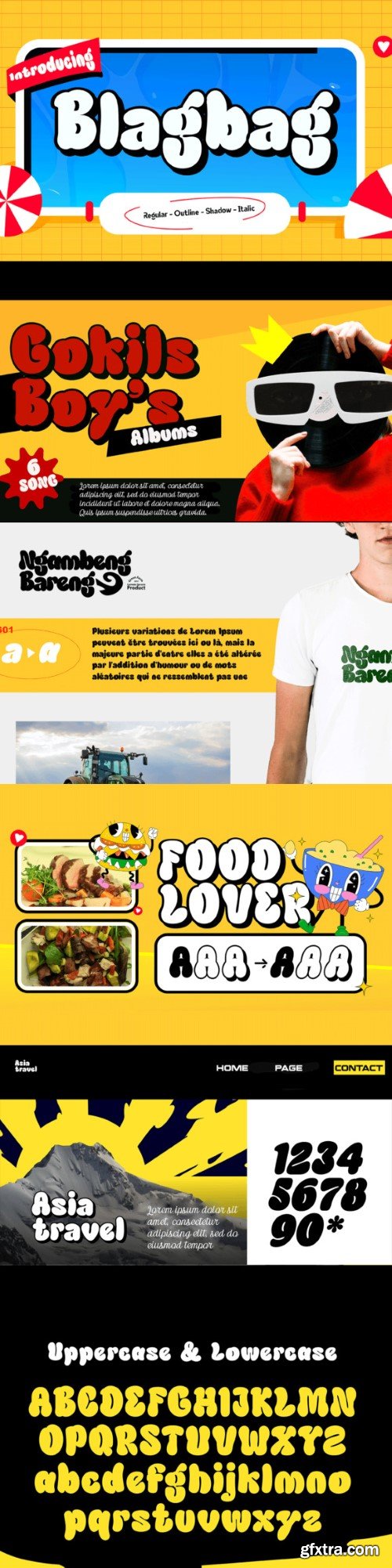
布莱格巴格 - 涂鸦字体
Blagbag is an urban graffiti font with soft edges. Ideal for music posters, titles, branding projects, logos, advertisements, and more. Blagbag comes with 6 styles that can be combined with one another. This font will make your design projects stand out.